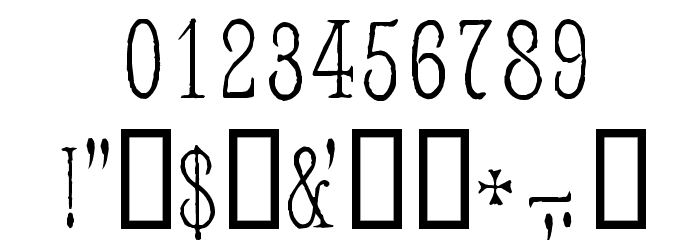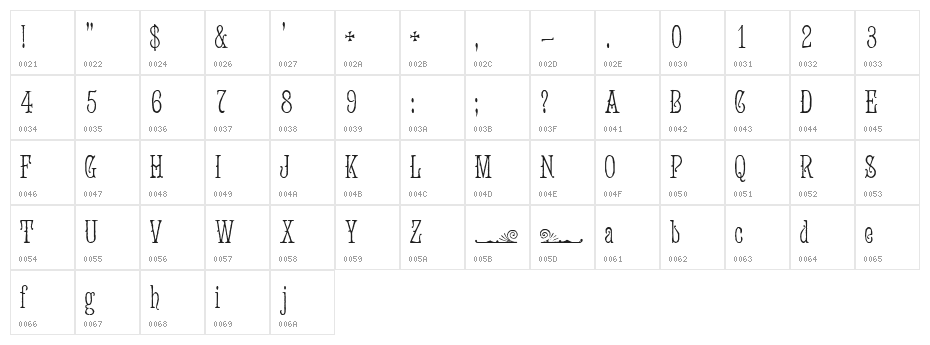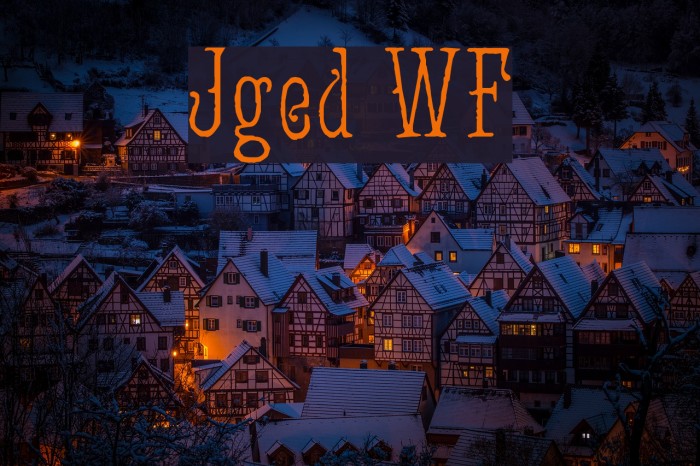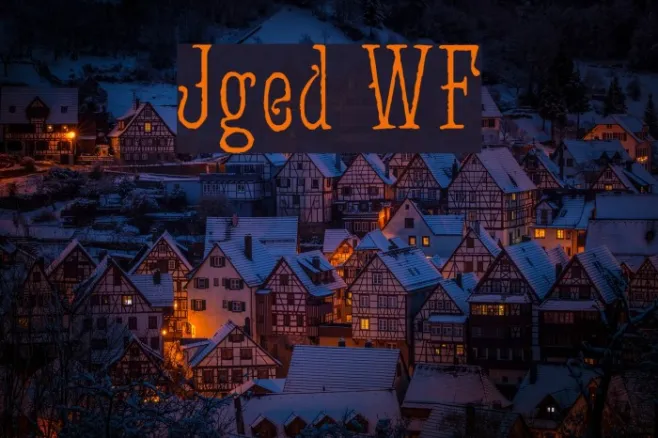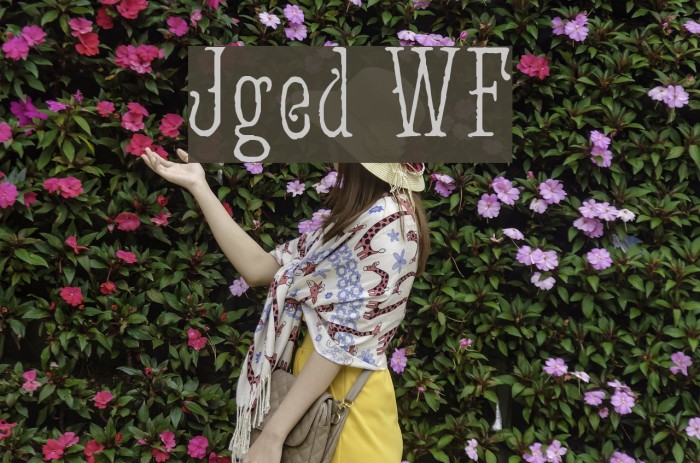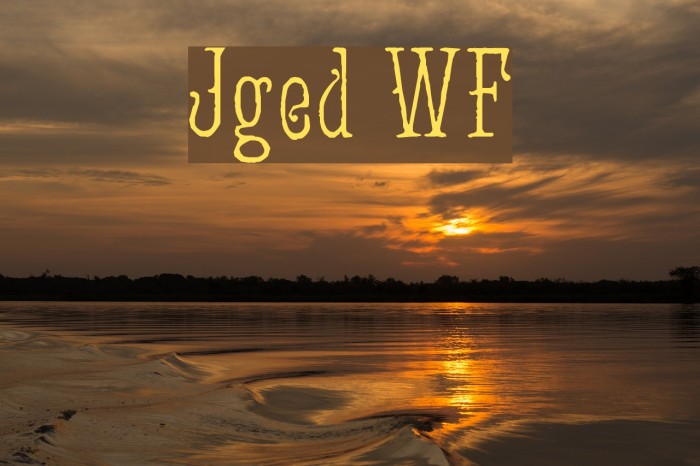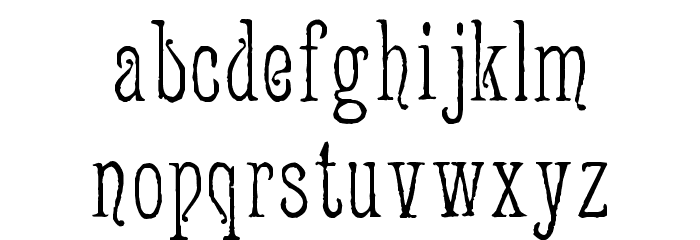
Jugend WF Font
Jugend WF Description
This font features a distinctive, decorative style with a vintage flair. The uppercase letters are bold and slightly condensed, with unique serifs that give them a handcrafted appearance. The lowercase letters maintain the same decorative quality, with some characters having a slight slant, adding to the font's quirky charm. Numbers are consistent with the overall style, featuring the same decorative elements. Special characters are creatively designed, fitting seamlessly with the rest of the typeface. This font's unique style makes it stand out, perfect for projects that require a touch of nostalgia and artistic flair.
| Proposed Projects | Ideal for vintage-themed posters, artistic book covers, retro branding, and creative invitations. |